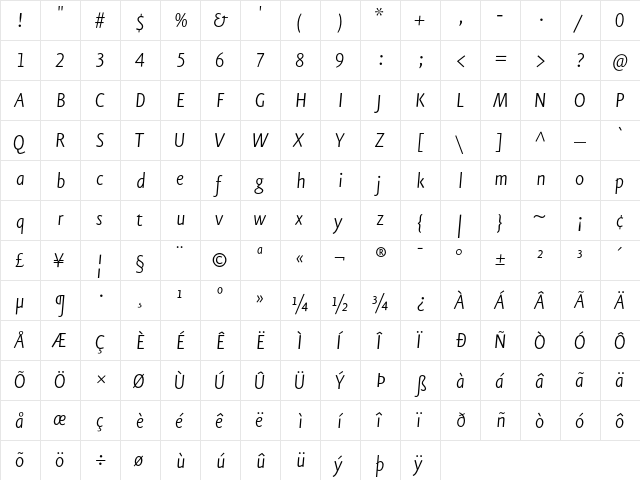
Eureka Sans Light Italic Font Preview
Design Context for Eureka Sans Typeface
Eureka Sans takes a measured approach to typography — its balanced proportions and neutral character make it a reliable workhorse for both digital and print work. The dynamic lean of this cut emphasises speed and emphasis in any layout. The delicate stroke weight brings airiness and refinement to layouts.
Pro Tip: Try Eureka Sans for annotation and caption copy alongside an upright companion — the contrast in angle creates a dynamic but ordered typographic system.